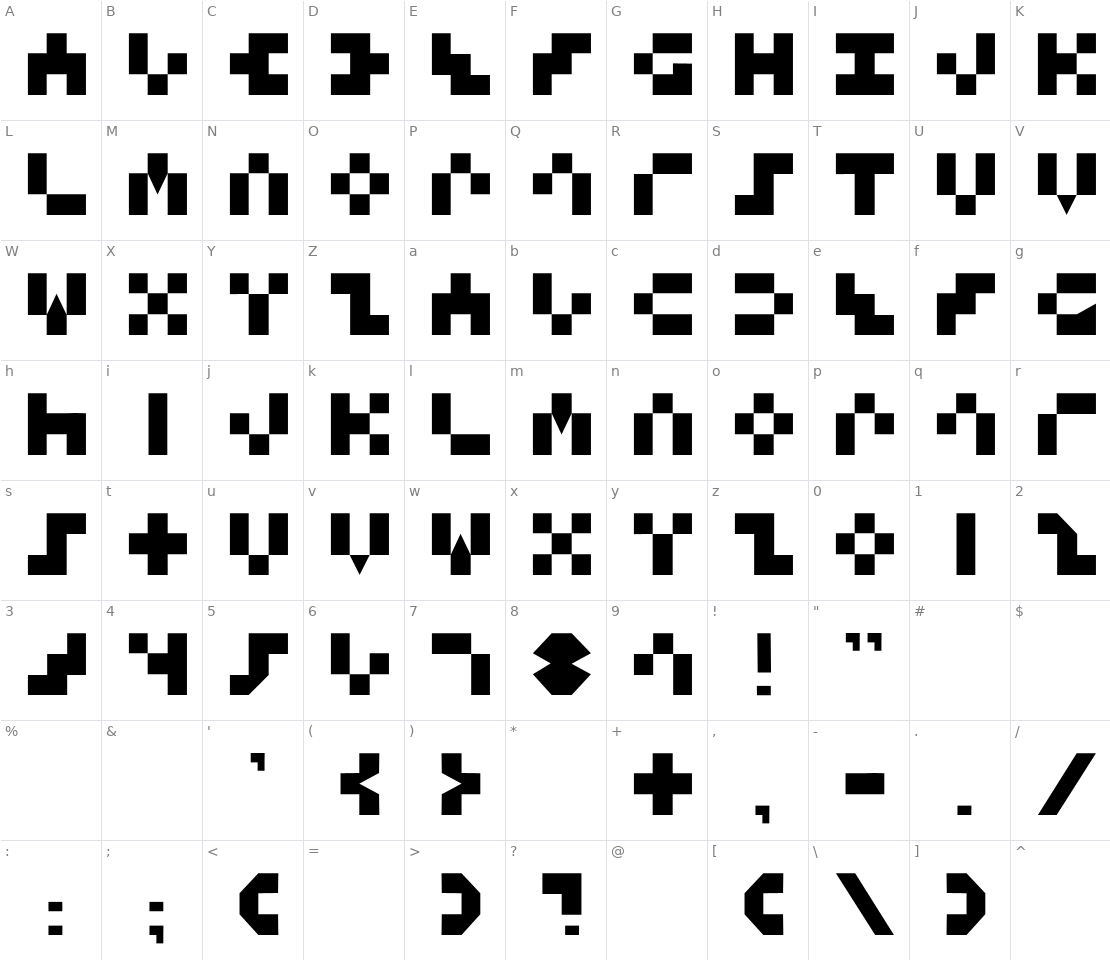
Keystone
Keystone is a bold, blocky pixel font from Iconian Fonts with chunky geometric letterforms that recall the low-resolution displays of early computing and 8-bit gaming. The characters are heavy and compact, carrying enough weight to hold up in headlines, game interfaces, and retro-themed design work. It reads cleanly despite its pixelated construction, which makes it more versatile than a lot of bitmap faces at this scale.